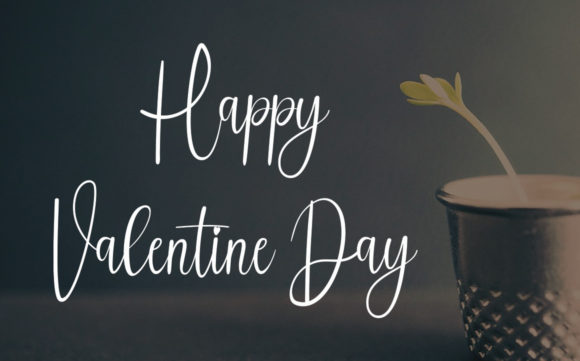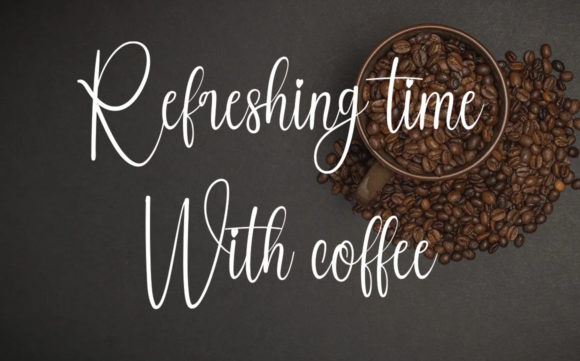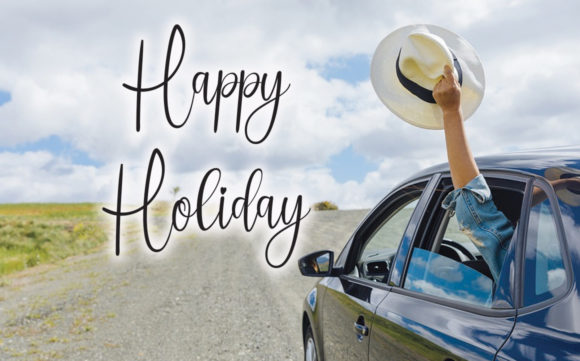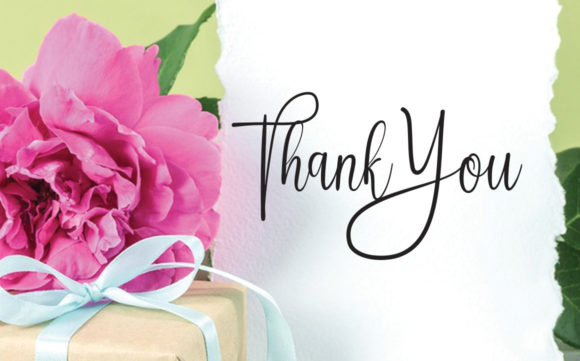
Introduction to Missyou Font
Missyou is a sweet and romantic handwritten font featuring a delicate flow.
Use it for wall displays, wedding invitations, social media post logos, and any project that requires impressive typography .
Key Features of Missyou Font
Why Choose Missyou Font?
Missyou Font offers exceptional quality and versatility, making it a valuable addition to your design toolkit. Whether you’re creating for personal projects or commercial use, Missyou Font delivers professional results.